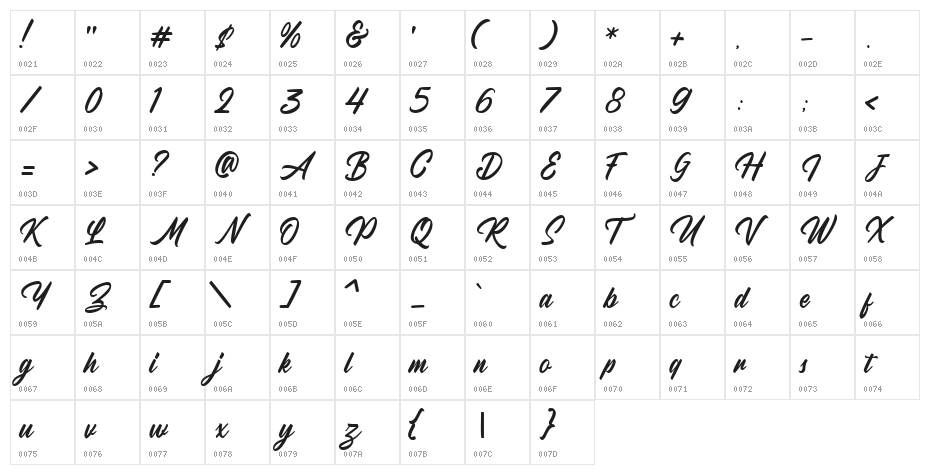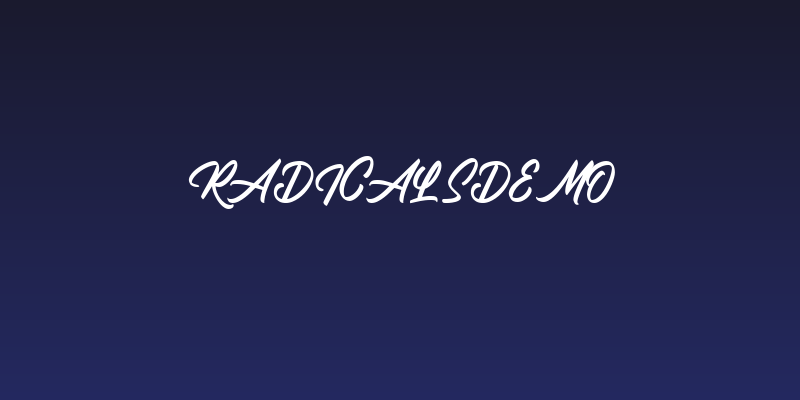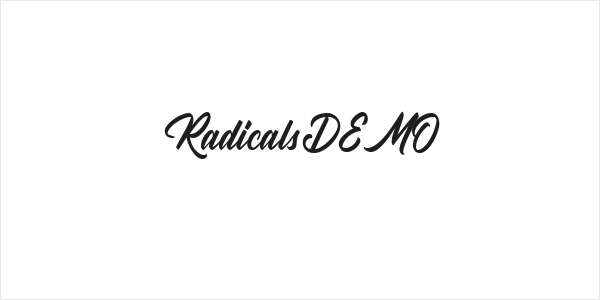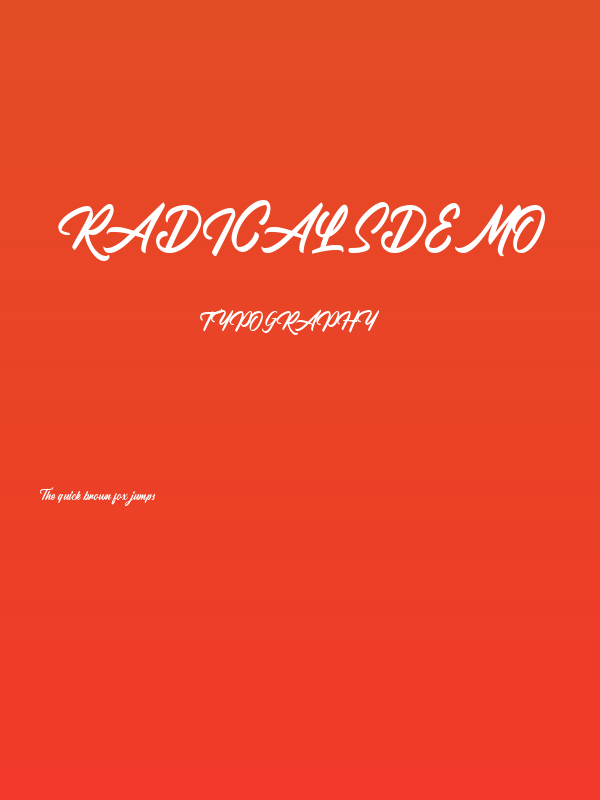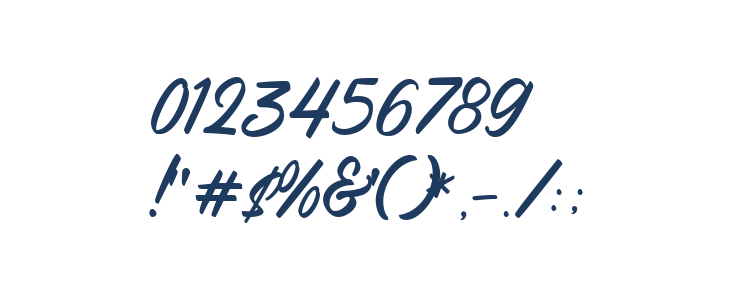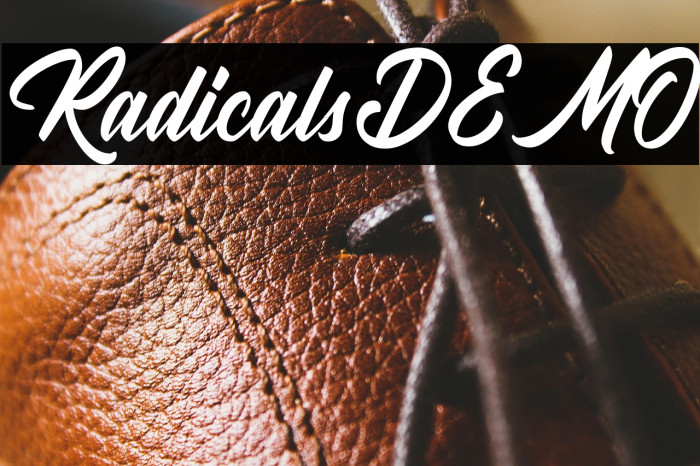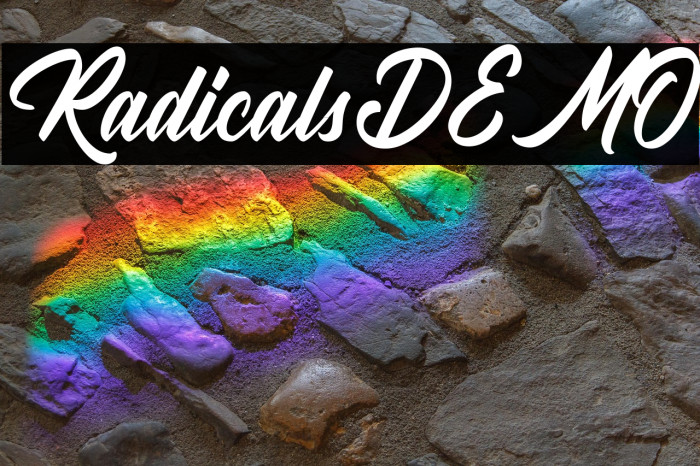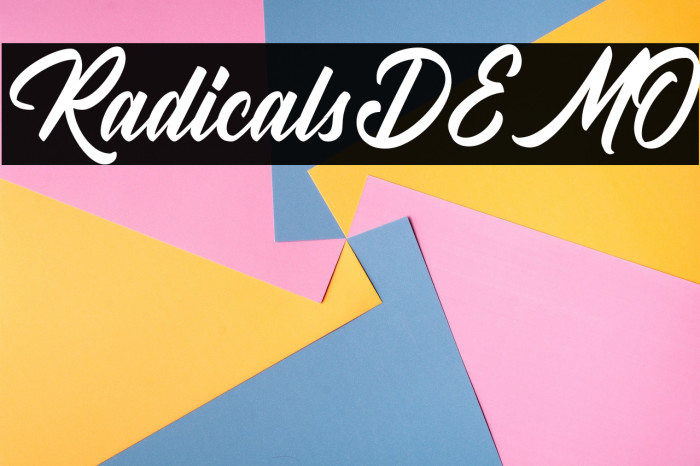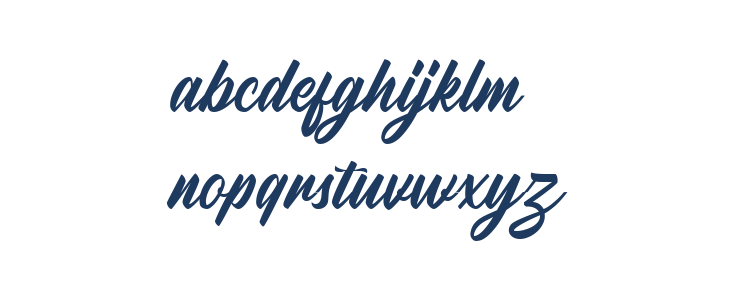
RadicalsDEMO Font
RadicalsDEMO Description
This font features a bold, cursive style with a dynamic and energetic flow. The letters are interconnected, giving it a handwritten appearance that is both elegant and casual. The uppercase letters are slightly more elaborate, with sweeping curves and flourishes, while the lowercase letters maintain a consistent rhythm and balance. The numerals are bold and clear, matching the overall style of the alphabet. Special characters are included and maintain the same fluidity and boldness, ensuring consistency across all glyphs. This font is ideal for projects that require a personal touch or a sense of movement and creativity.